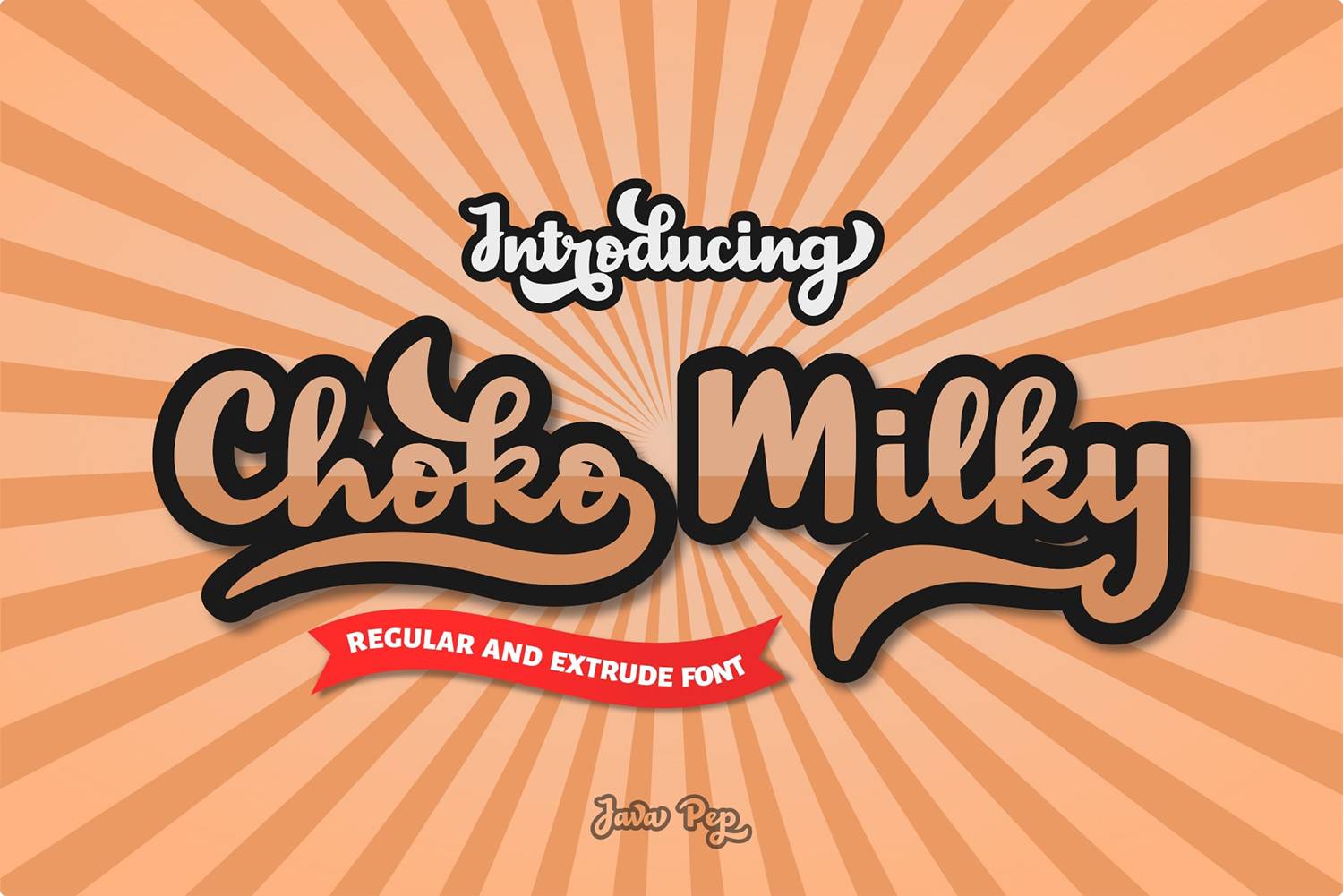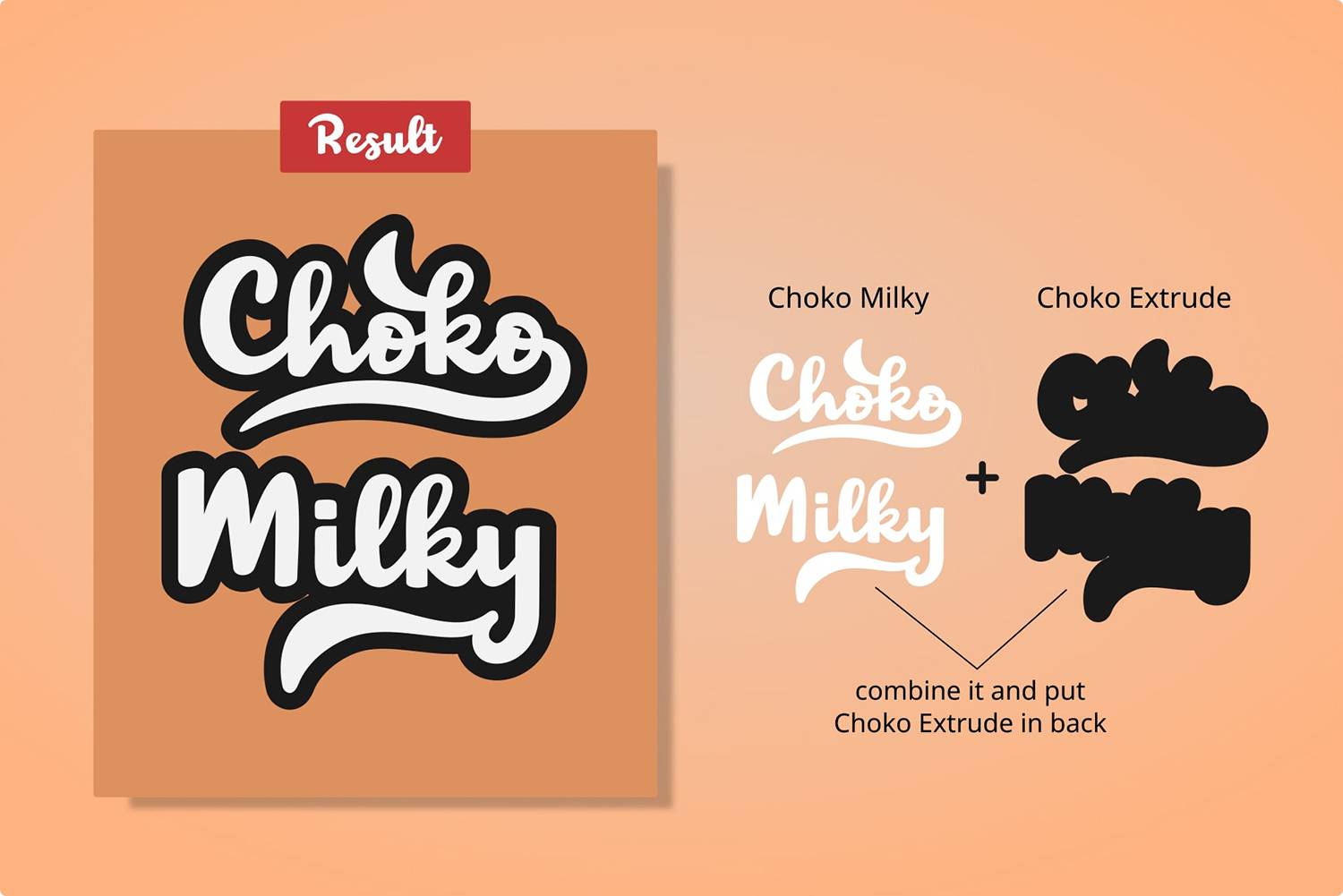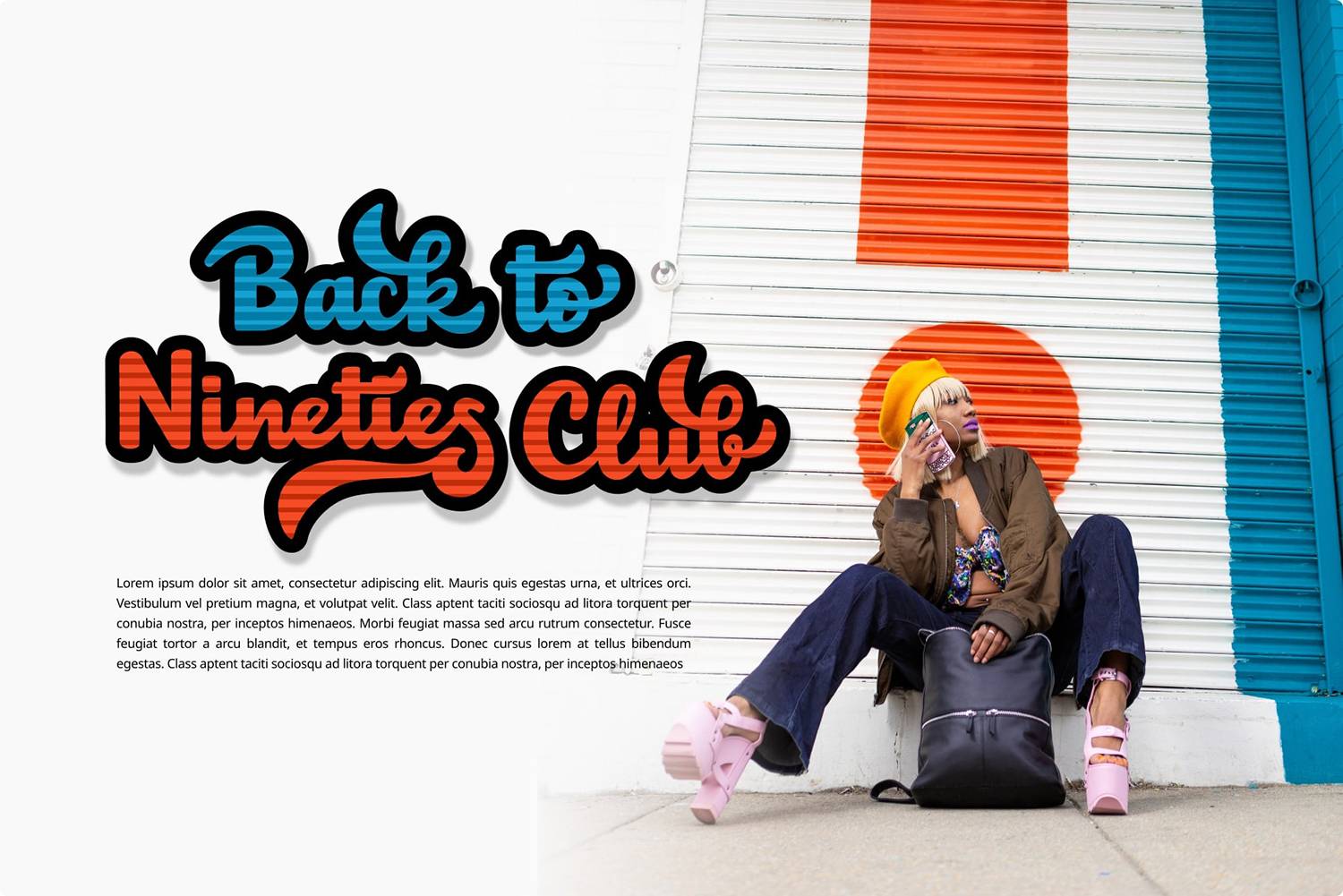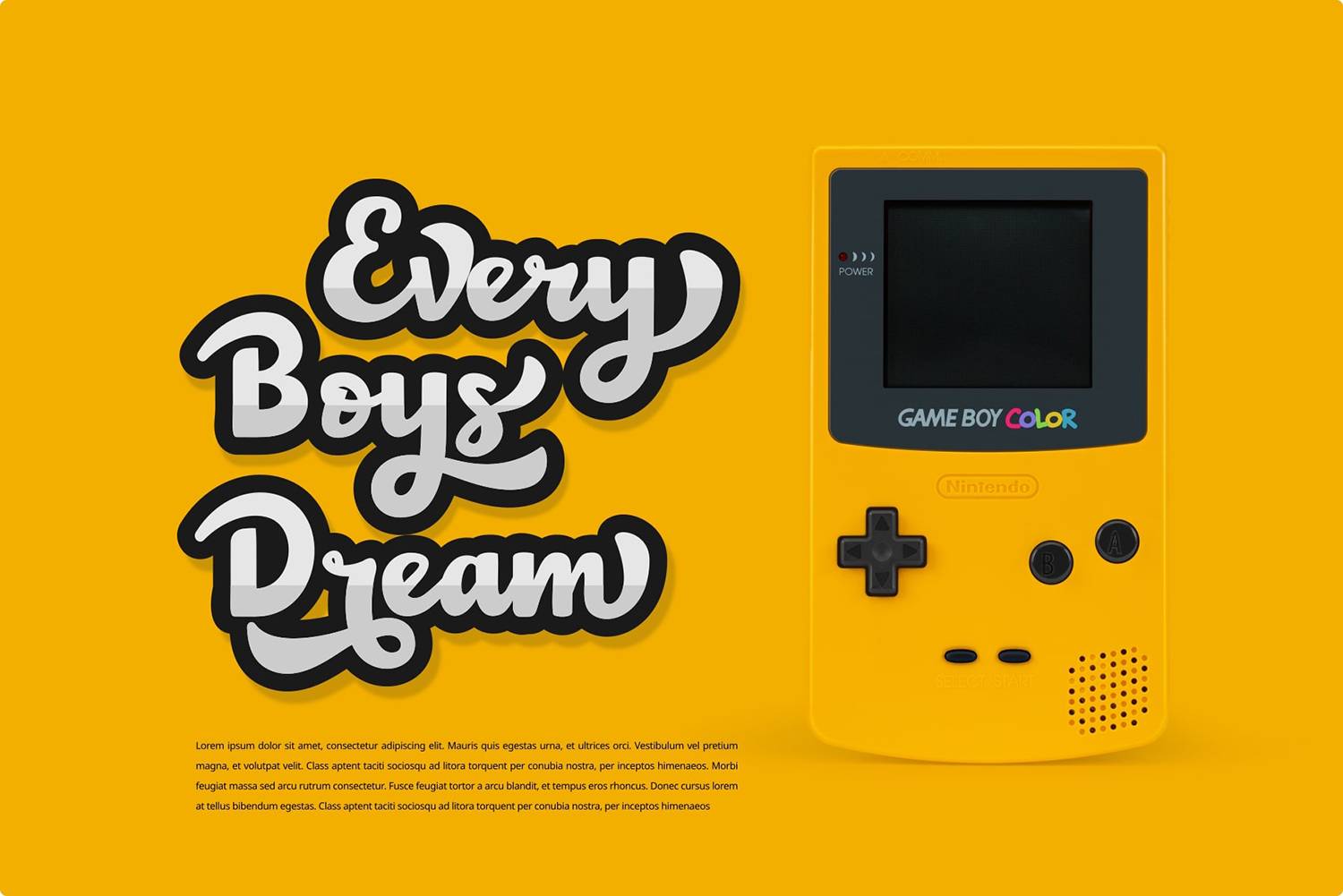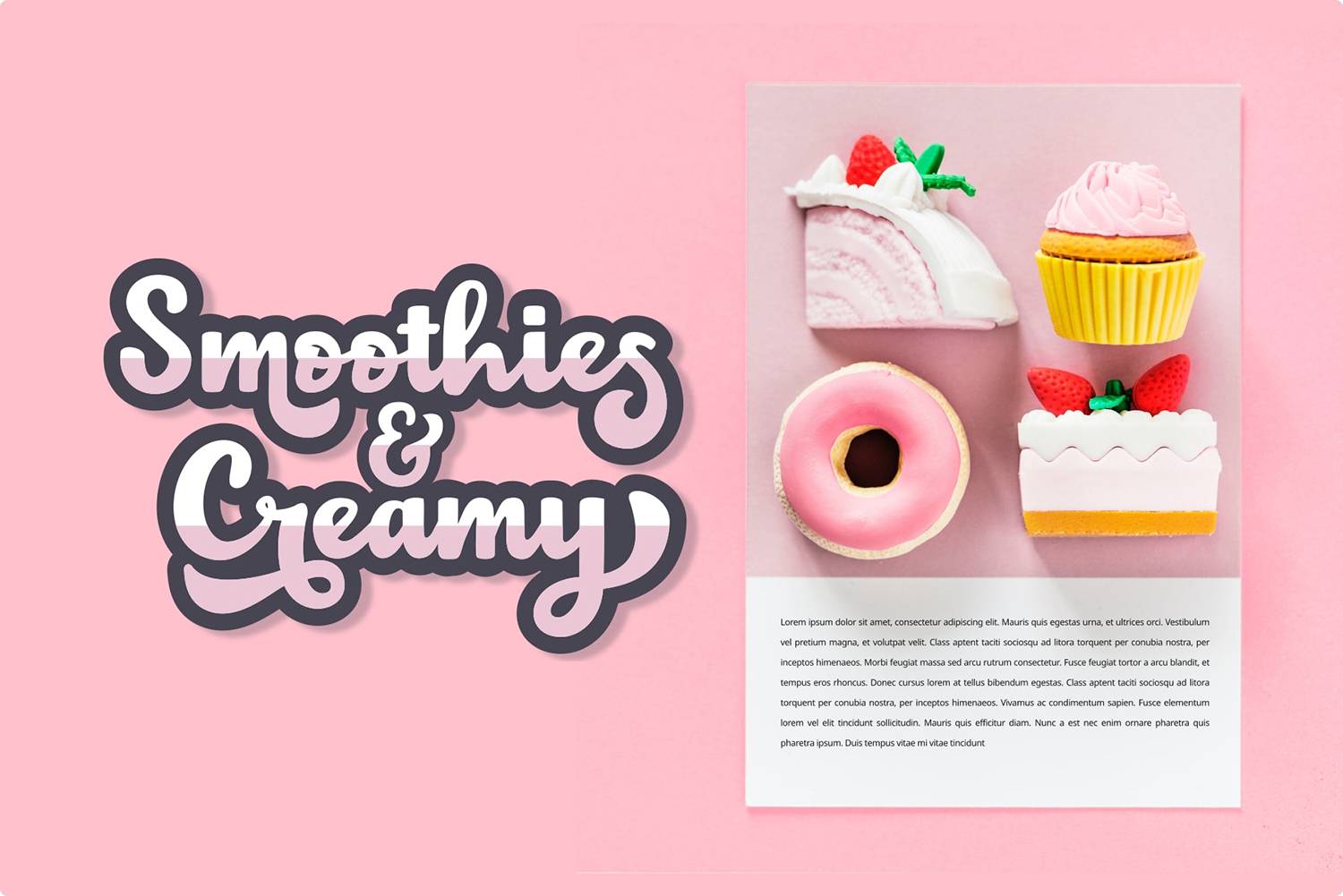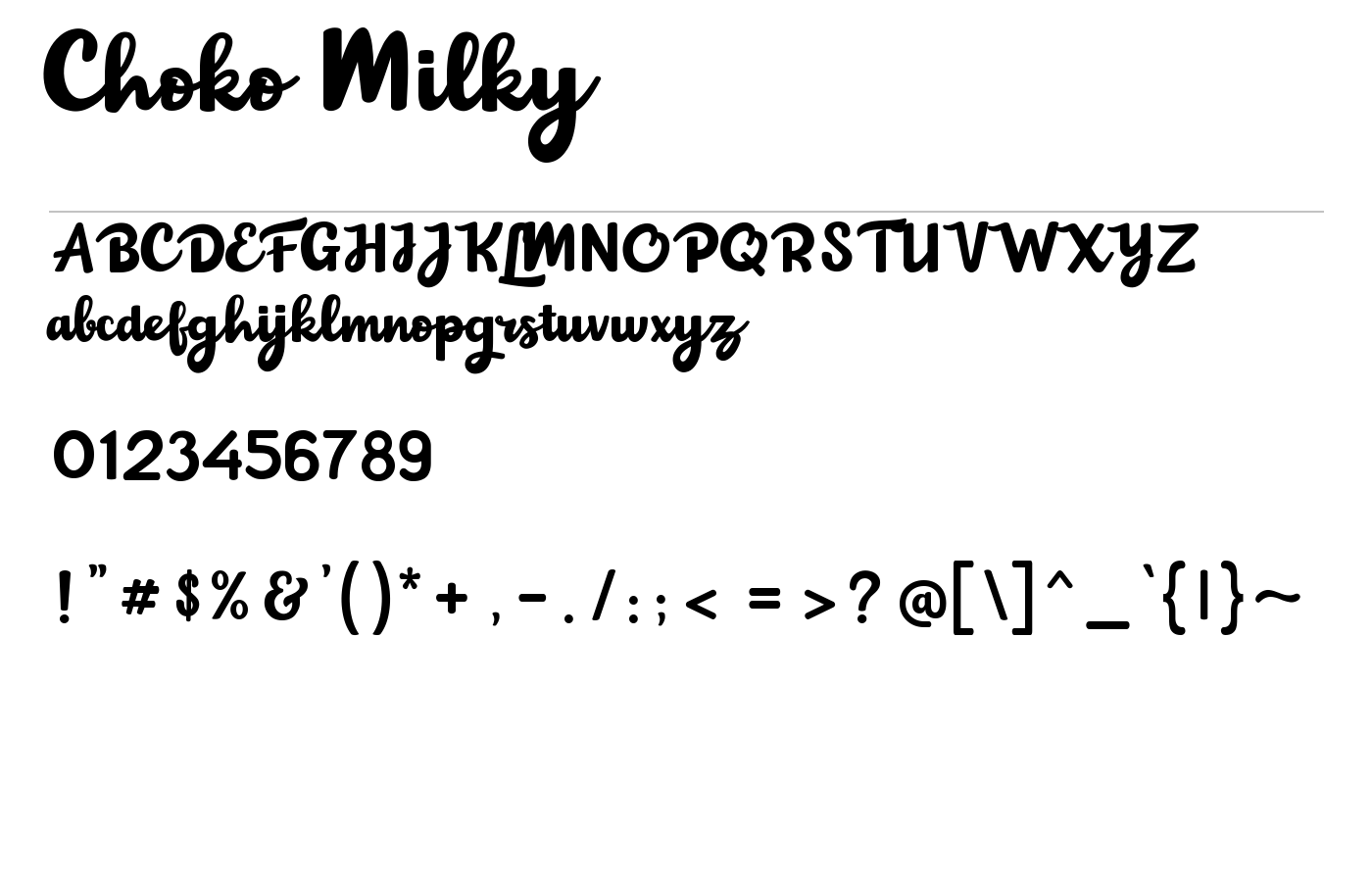
Choko Milky is a playful, bold script font with a lively, handwritten feel and smooth, rounded strokes. Its strong, casual style makes it perfect for cheerful branding, fun headlines, and creative packaging that aims to feel friendly and approachable. This font works well where a warm, informal touch is needed to express personality and charm.